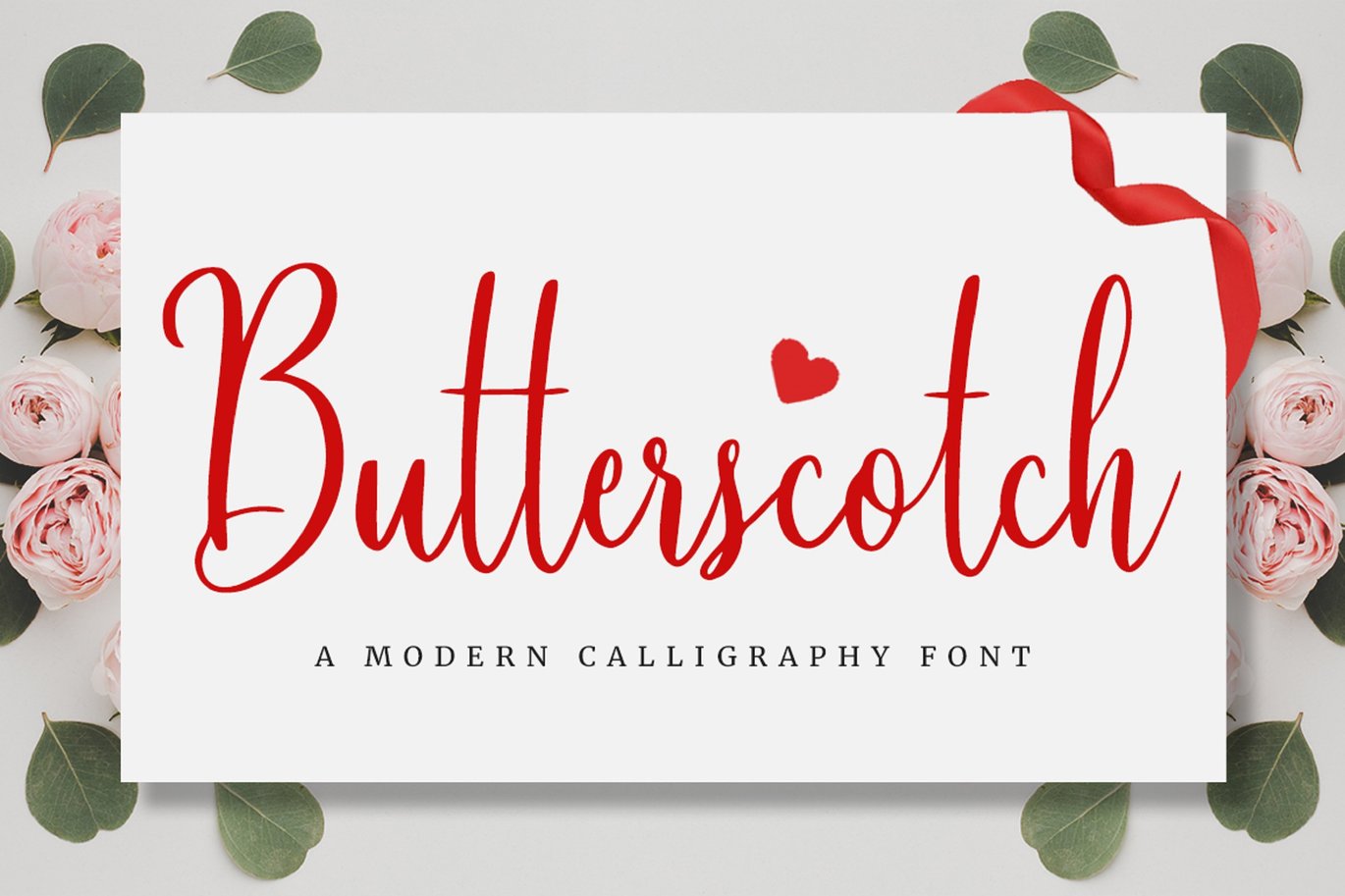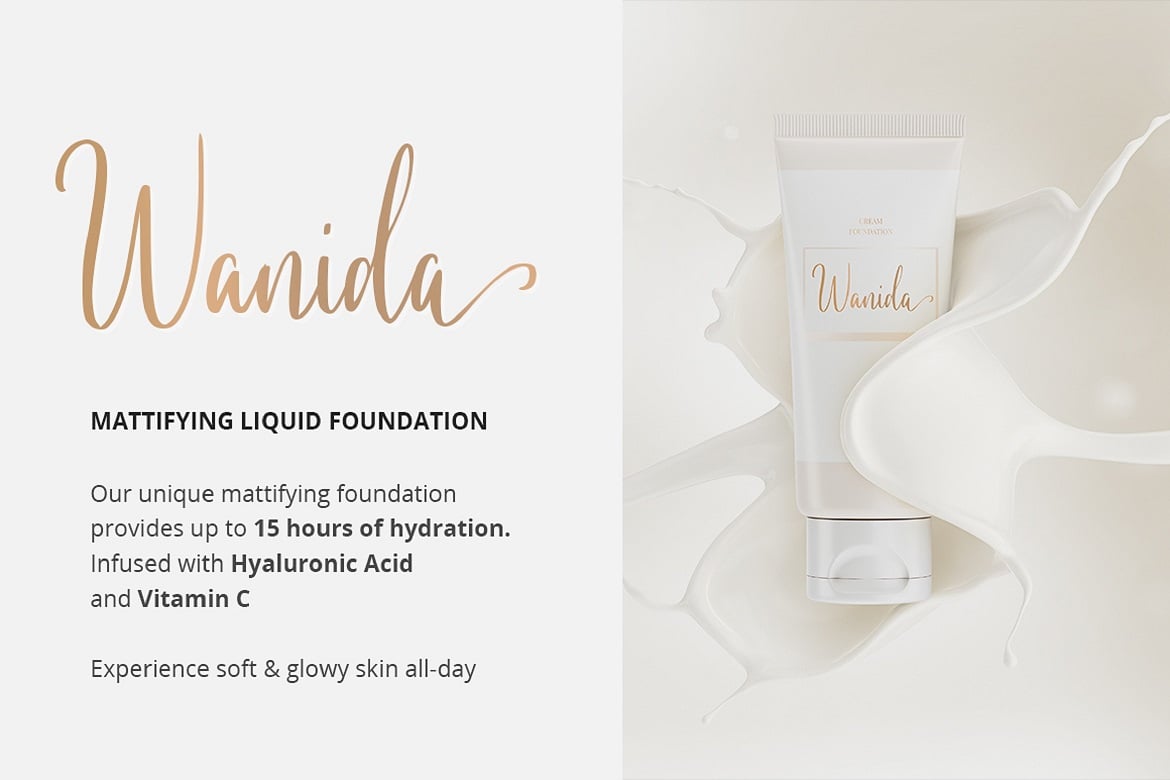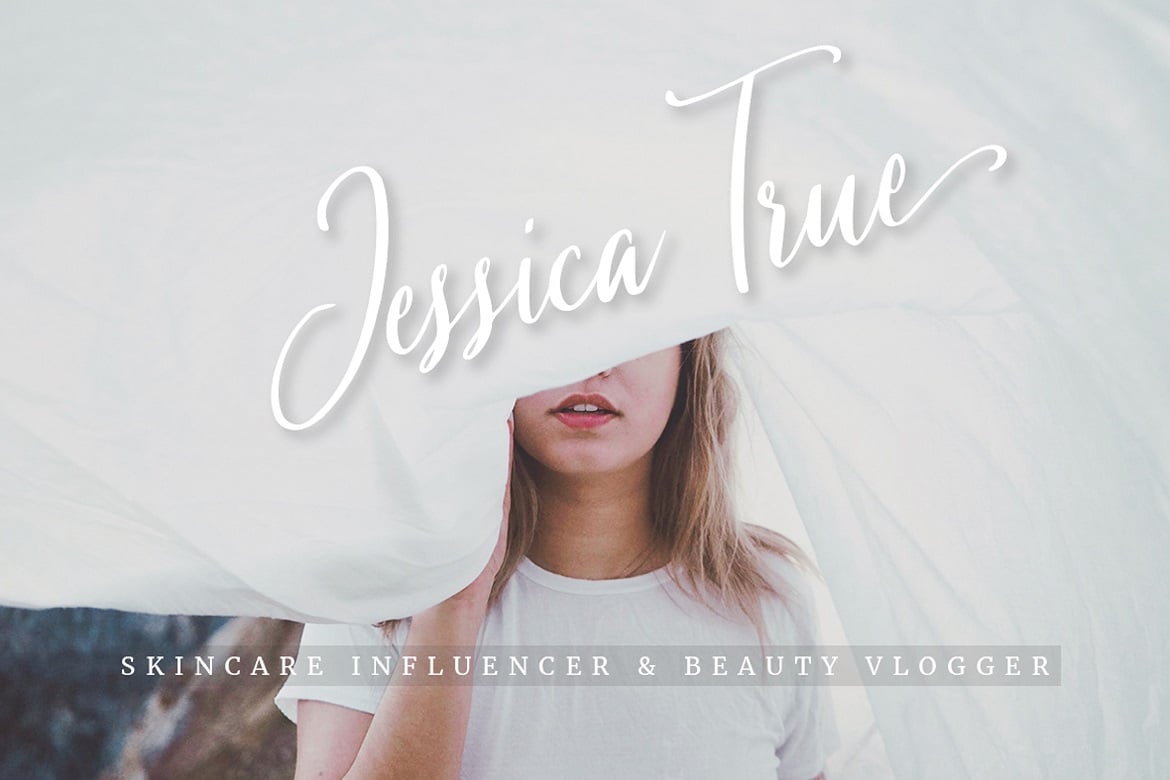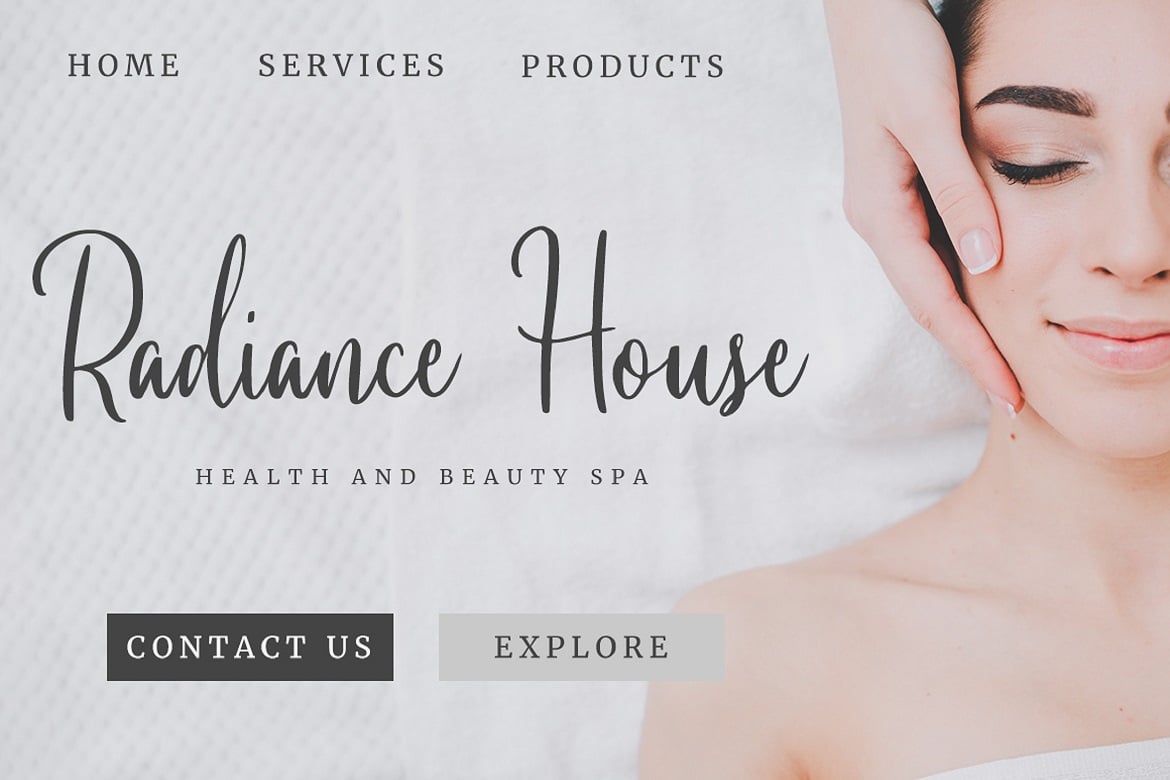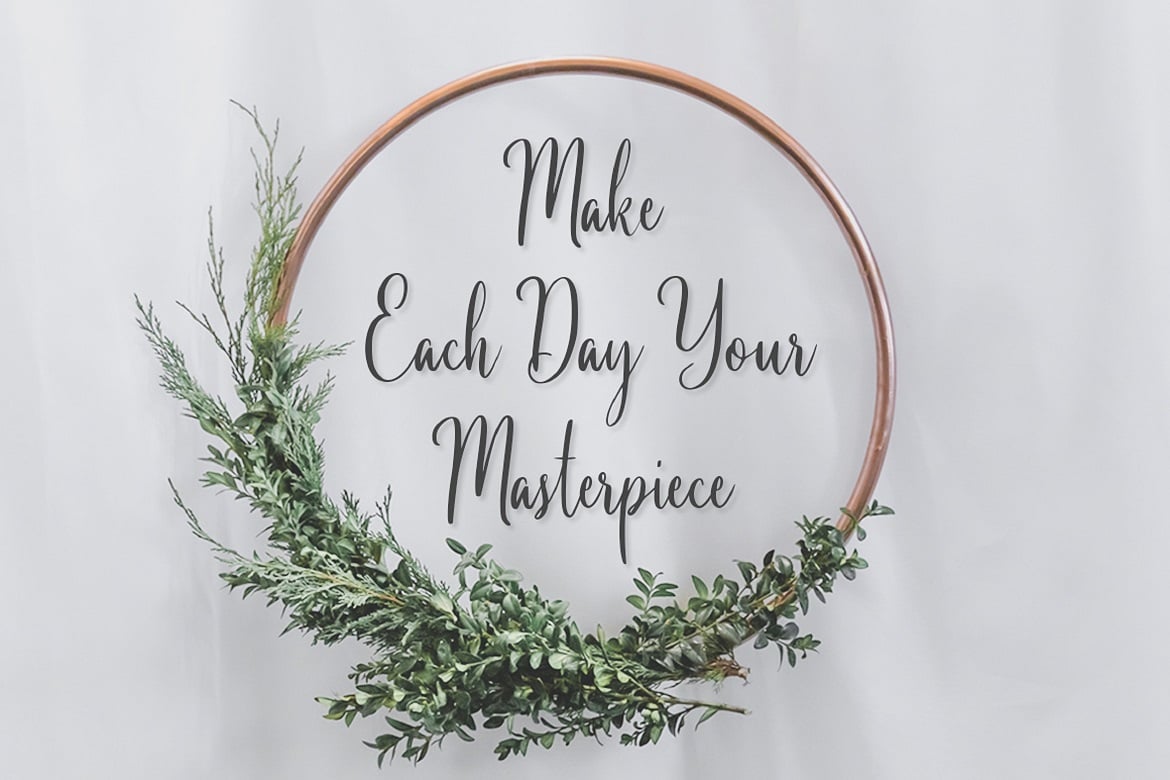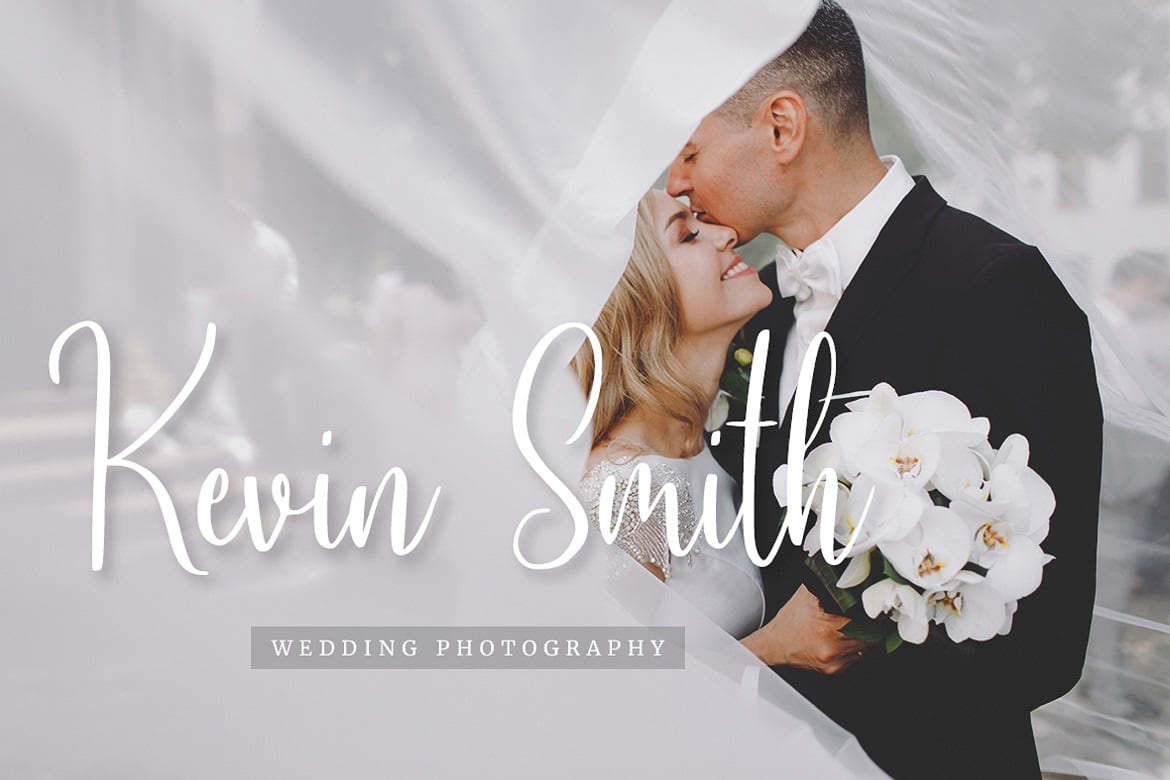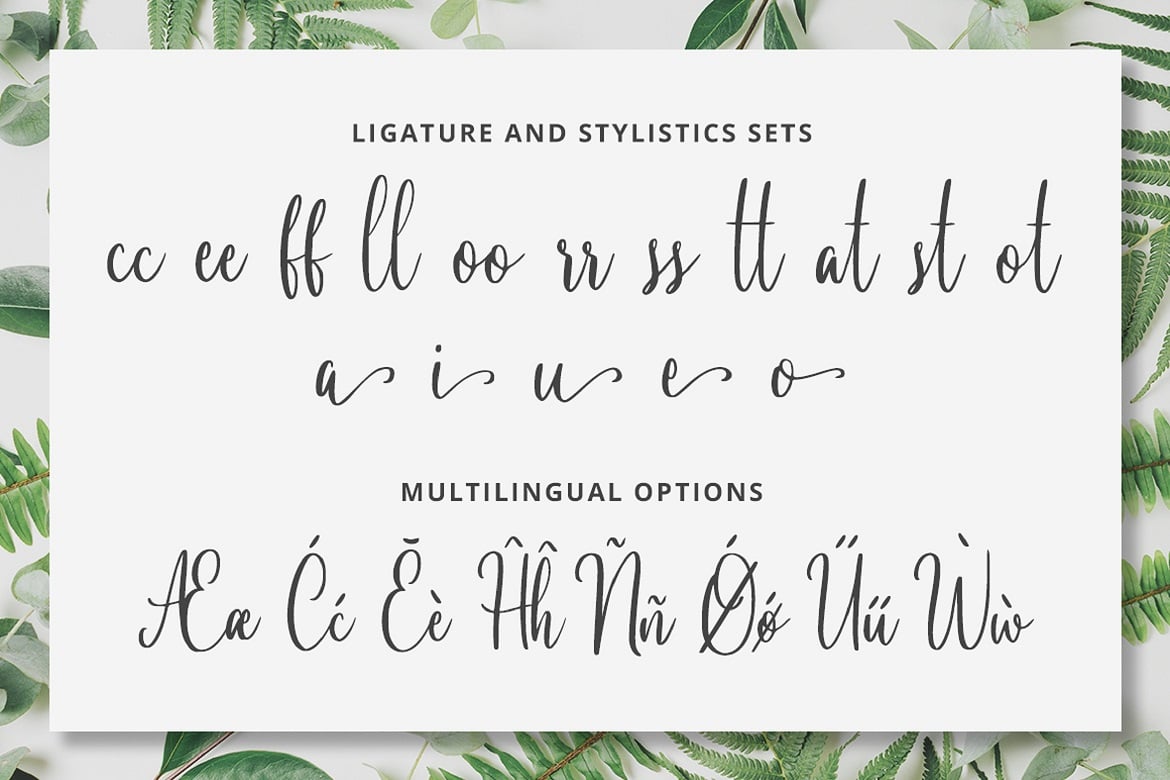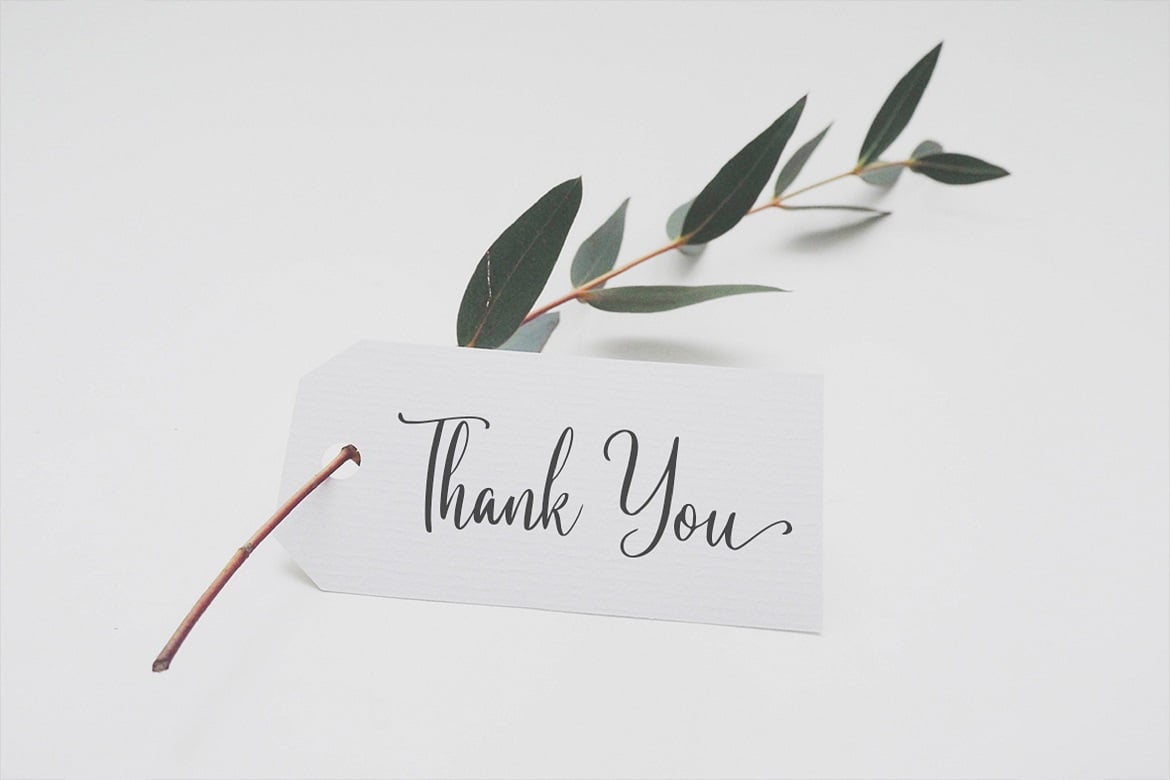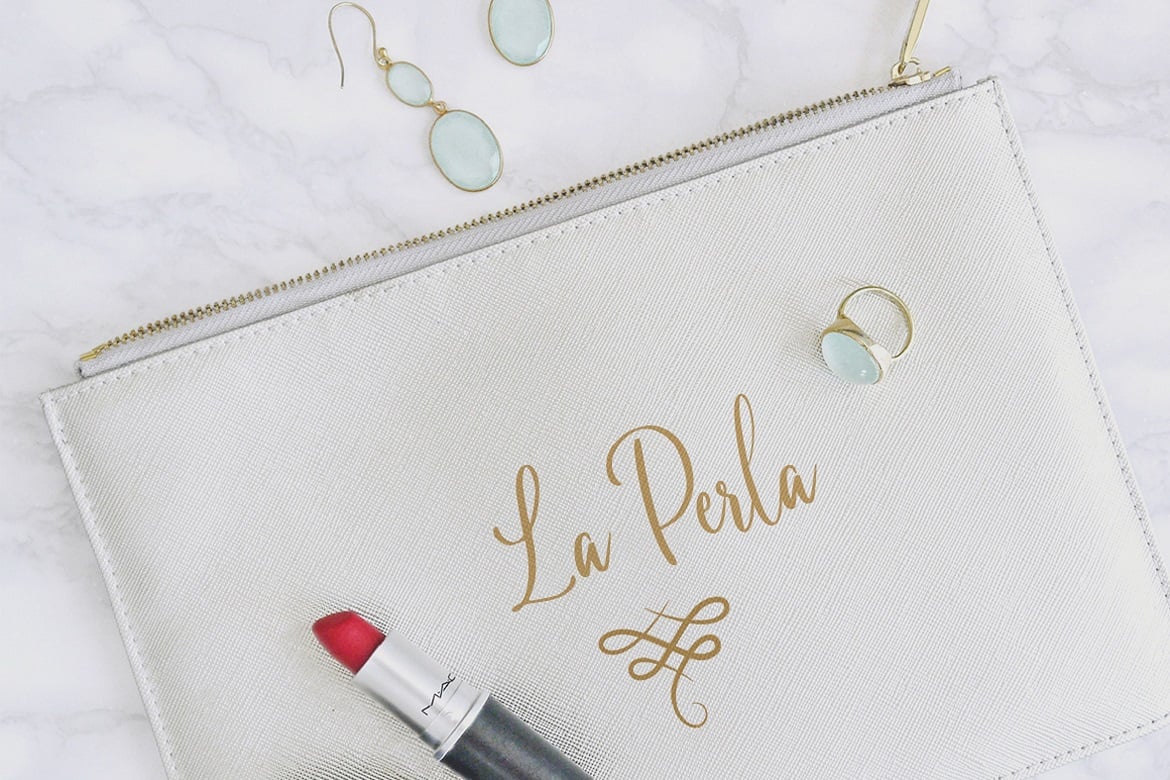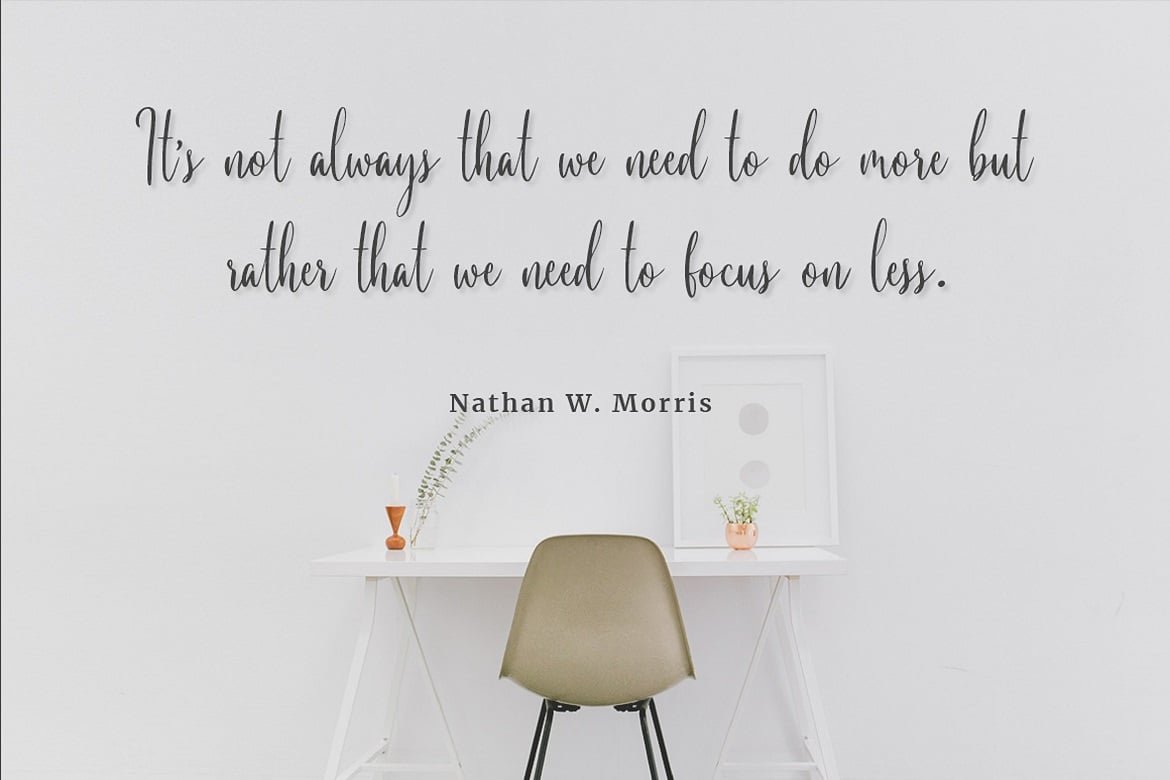
Introducing Butterscotch – A Modern Calligraphy Font.
A fabulous and elegant modern calligraphy font that’ll engage your audience and make your branding stand out from the competition.
Handcrafted to create the perfect contrast between your headings and body copy. Perfect for social media branding projects, fashion designs, printed quotes, packaging, or even as a stylish text overlay to any background image.
Butterscotch includes Ligature & Stylistic Sets as well as Multilingual Support to make your branding reach a global audience.
Let the world see your gorgeous projects with this modern calligraphy font!
- Multilingual & Ligature Support
- Full sets of Punctuation and Numerals